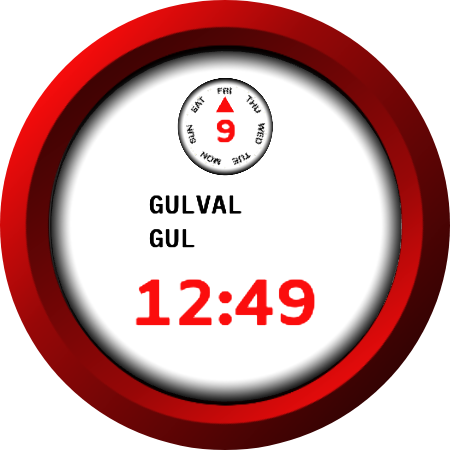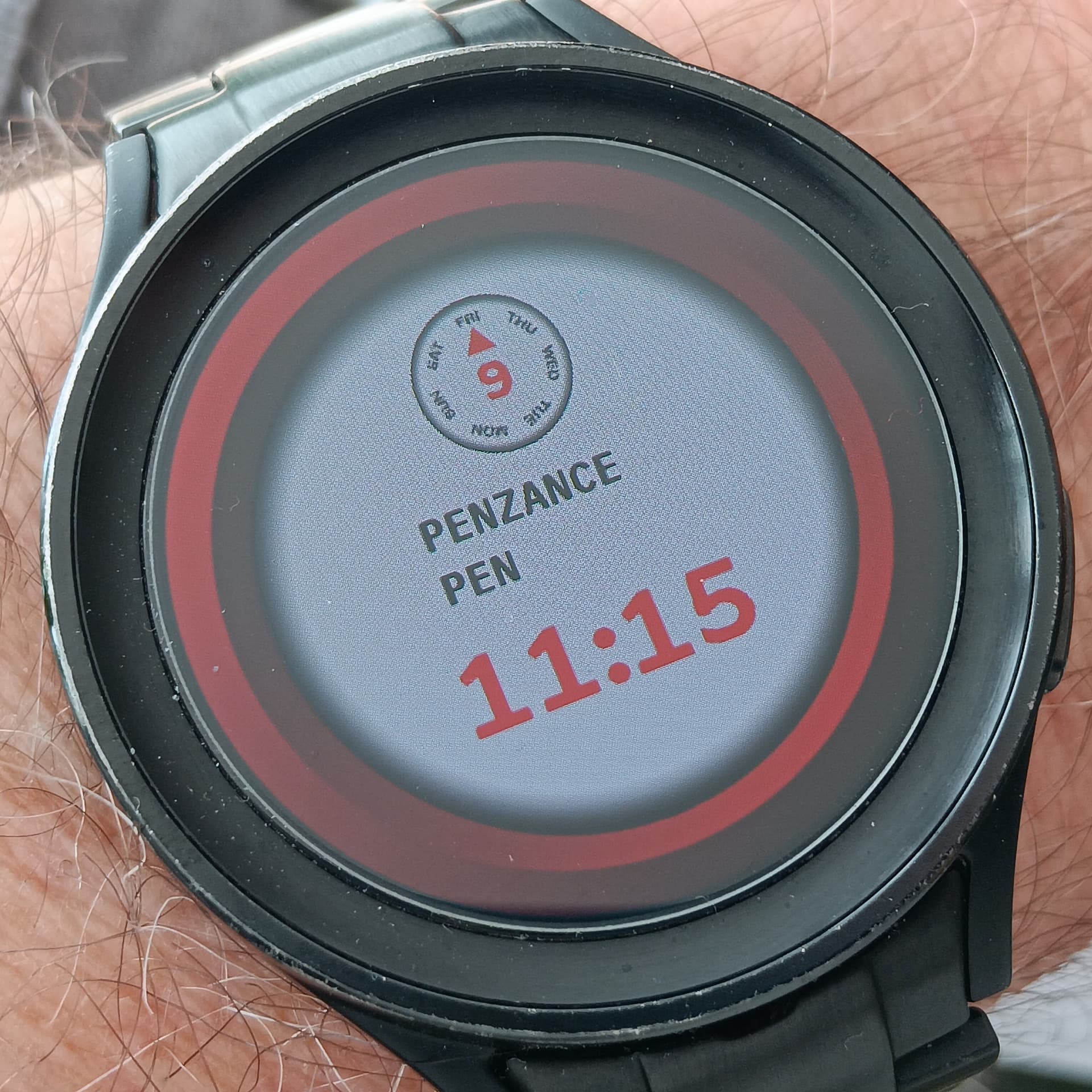
I’m trying to solve a problem I’m facing (pardon the pun) with the location tag. As far as I understand the tag gives both upper and lower case results ie Los Angeles. What I want is LOS ANGELES. Actually I’m interested in only the first three letters and/or spaces. What I’m looking for is a monospaced font with uppercase letters only. I thought i found a couple of fonts that would be ok but one didn’t work with Facer and the other was a display font where some letters were a bit strange.
Can anybody point me in the direction of such a font, or, tell me how to force the location tag to give capital letters only?
I maybe pointed them out in past and when I started to make fonts my self, monospaced were more in my focus, but meanwhile these are only fraction of my published fonts.
Even Facer creator offers many monospaced fonts under description “fixed width”
There are also places where you can find plenty and filter as you like. Like @Rator stated above, you do not need caps only font, there is setting for that.
If you aim to mask the rest behind third letter, this can result in very many places with same abbreviation like LAS or SAN
This is all for my Flying Weather watchface I want the user’s Location to show up as the first three letters and in uppercase (this is the formatting used in a METAR weather report for pilots) it doesn’t matter that there are duplicate locations it is just for the user. So…if @Rator 's solution means that those 3 letters will show up only as uppercase on the user’s watch, then that’s an easy solution.
Okay if the answer is something different then …as has been said, there are probably 100+ monospaced fonts including those in Facer but they all include both upper and lower cases and I think that the location tag uses both and I need ONLY uppercase.